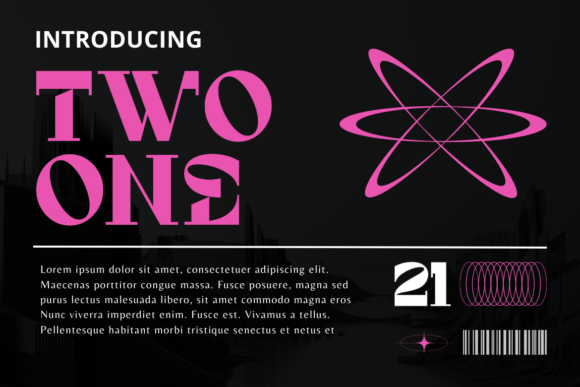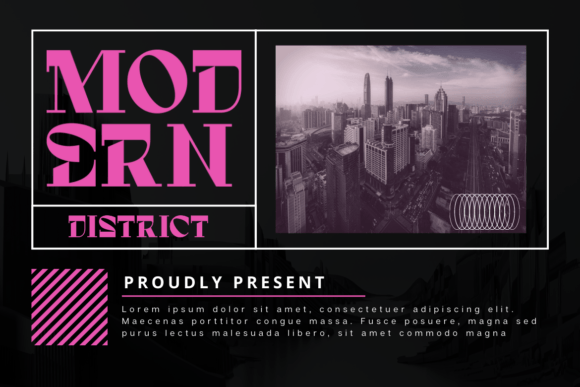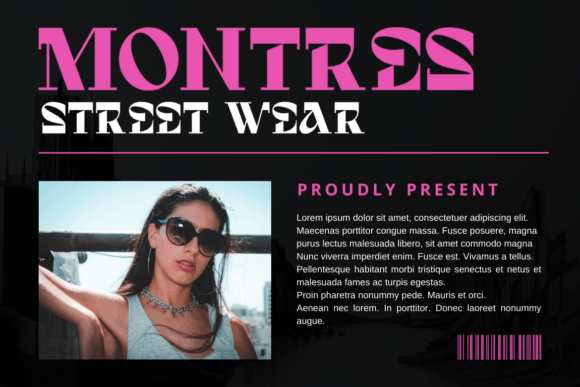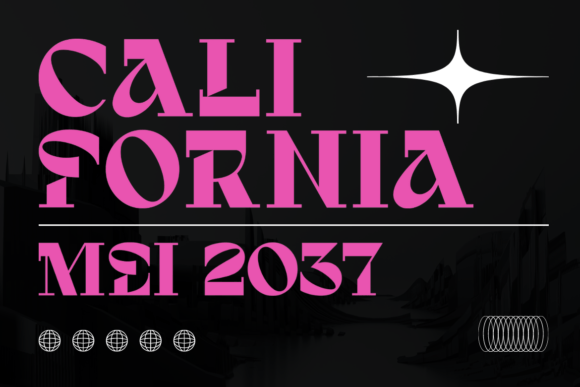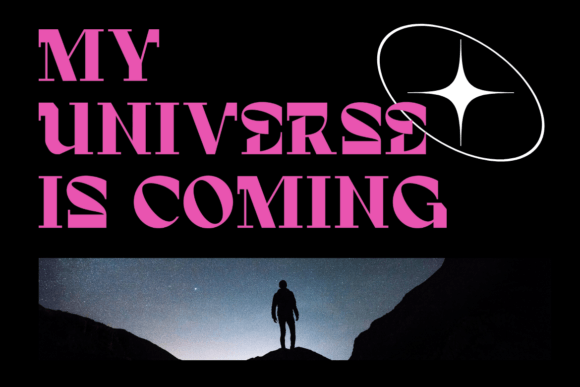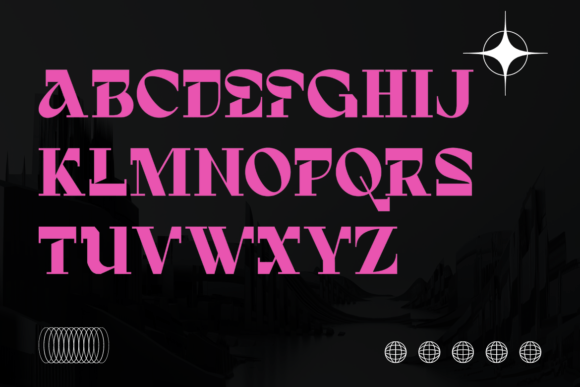
Introducing Blazer Font: Elevate Your Designs with Modern Flair
What Makes Blazer Font Special?
Blazer is a modern display font with a unique and firm touch, making it perfect for a variety of applications, including fashion magazines, logos, photography, landing pages, flyers, social media, and more. Its sleek design and versatility have won me over, and I’m sure you’ll love it just as much.
- Multilingual support to cater to a global audience
- Alternative characters for varied typography
- Ligatures to add a touch of sophistication
Honest Review: The Good and the Great
- ✨ Unique and modern design: Blazer font stands out from the crowd with its fresh and contemporary look.
- ✅ Highly versatile: Suitable for a wide range of projects, from fashion and beauty to technology and lifestyle.
- 💡 Excellent for headlines and titles: The font’s bold and firm touch makes it perfect for grabbing attention.
- 🤔 Limited use for body text: Due to its bold nature, Blazer font might not be the best choice for lengthy paragraphs.
- ⚠️ Requires careful kerning: As with any font, some manual kerning may be necessary to achieve optimal results.
Blazer font was designed with the modern creative in mind. Inspired by the latest fashion trends and technological advancements, the font’s unique and firm touch was crafted to make a statement. Whether you’re working on a fashion magazine or a tech startup’s branding, Blazer font is sure to impress.
| Q: Is Blazer font suitable for body text? | A: While Blazer font can be used for body text, its bold nature makes it more suitable for headlines and titles. |